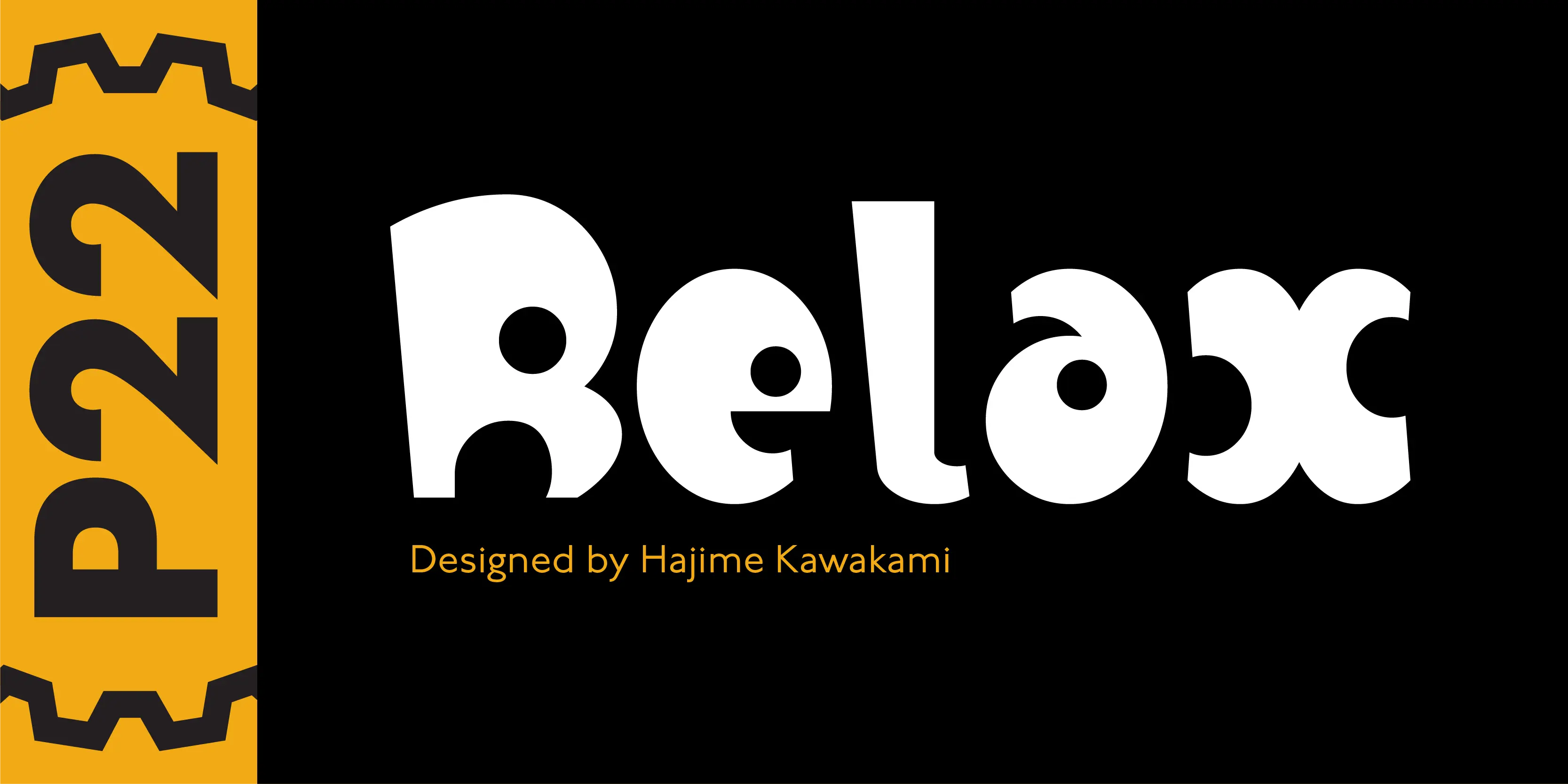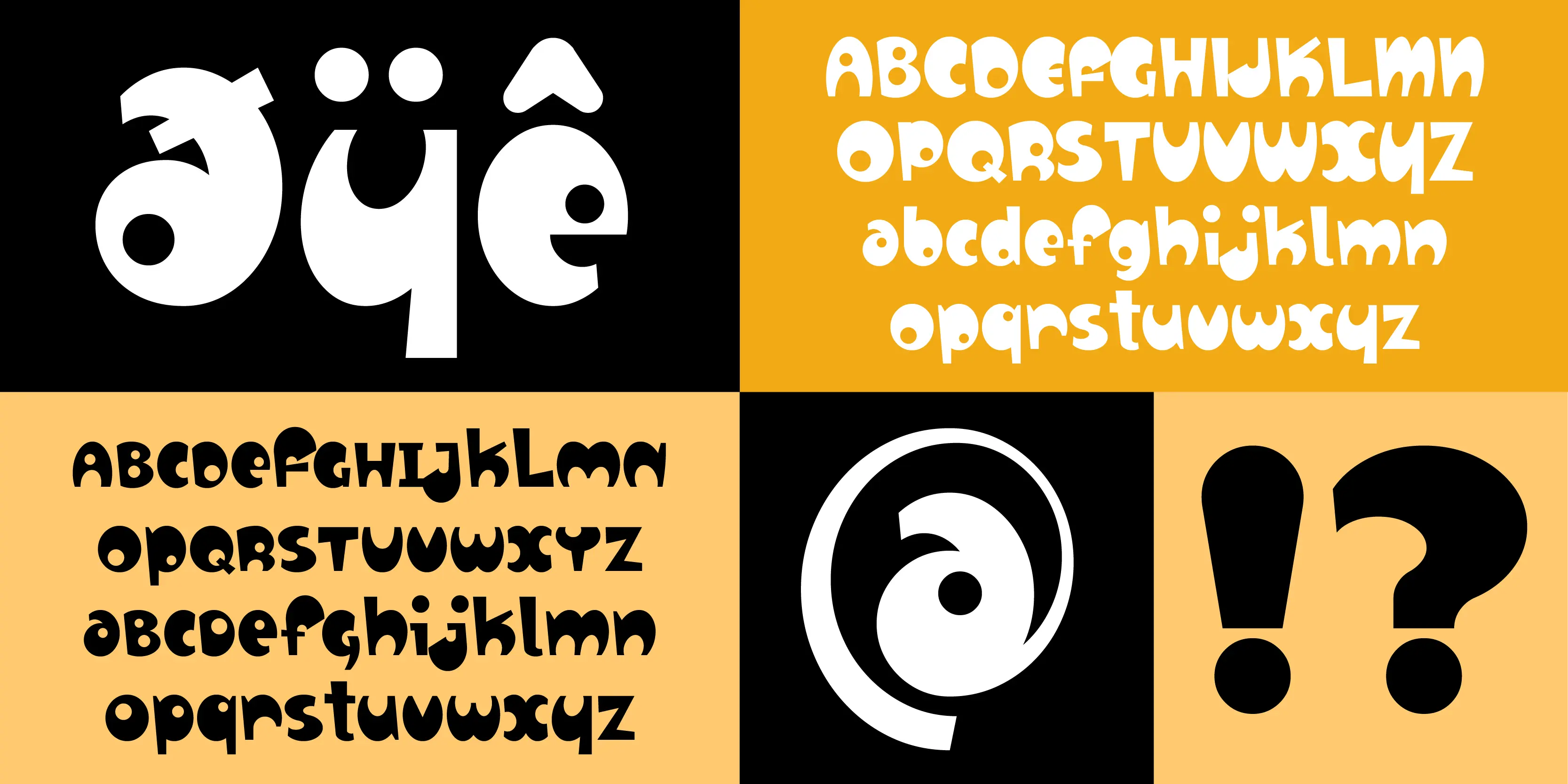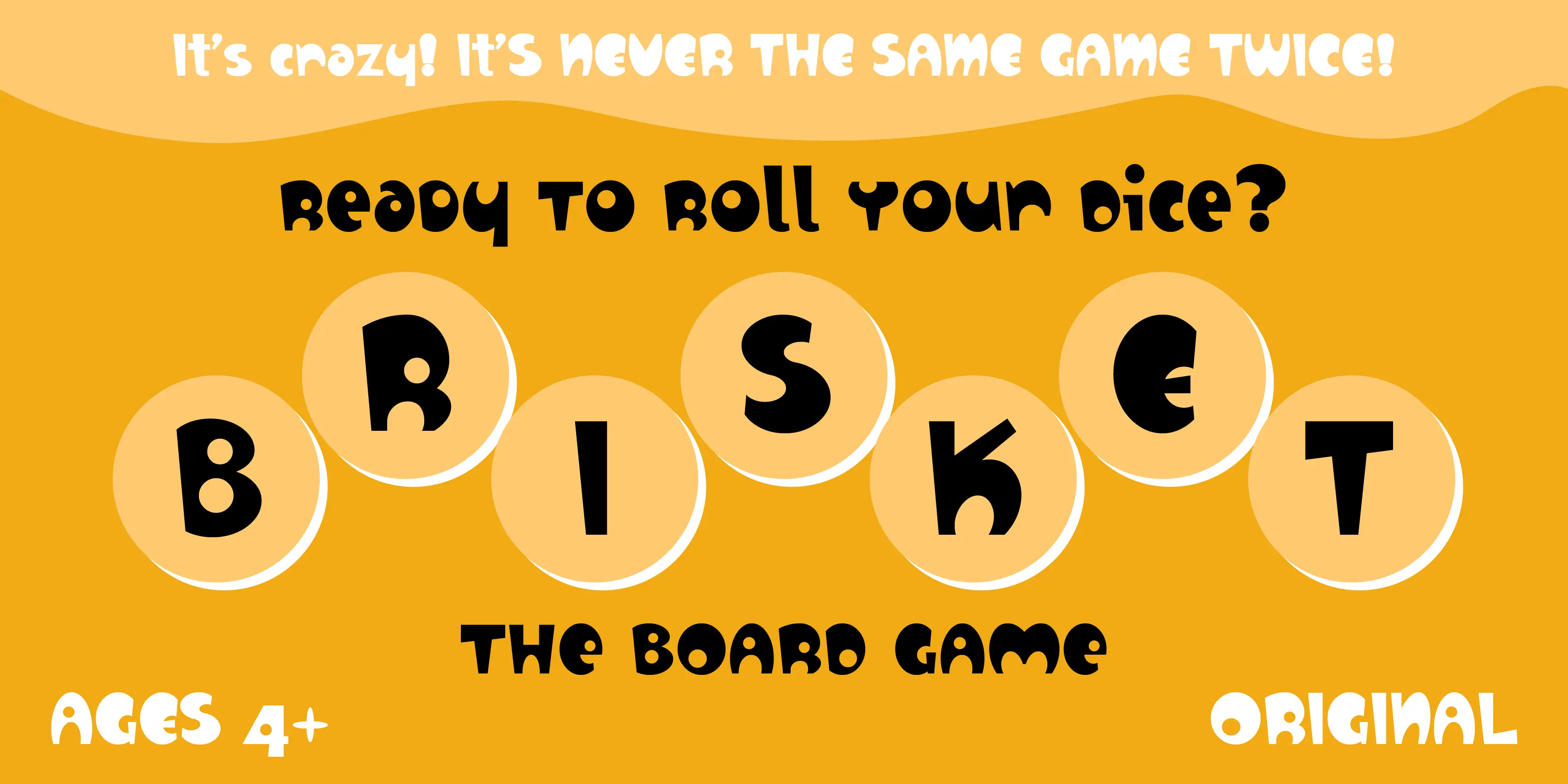
Relax Font Family
Relax Mix
Relax Regular
Relax
Relax, and its companion font, Relax Mix are two type designs that evoke a playful spirit. The casual shapes of Relax and Relax Mix make it the perfect accompaniment for the Ching Mang picture font.